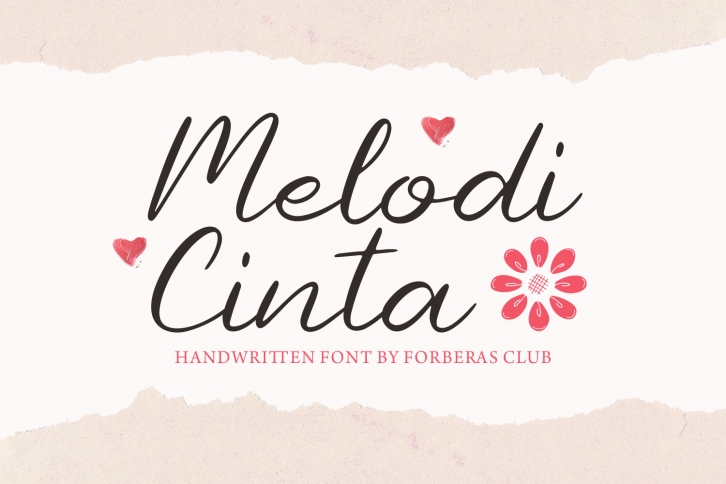
Melody Cinta is a delicate, free-flowing handwritten font. You can use it for various projects, such as blog posts, logos, branding, ads, invitations, greeting cards, planners, photo albums, decorations, and much more. Add it to any of your designs, and enjoy the results!